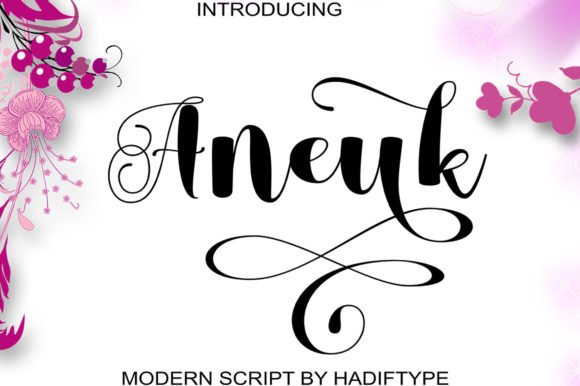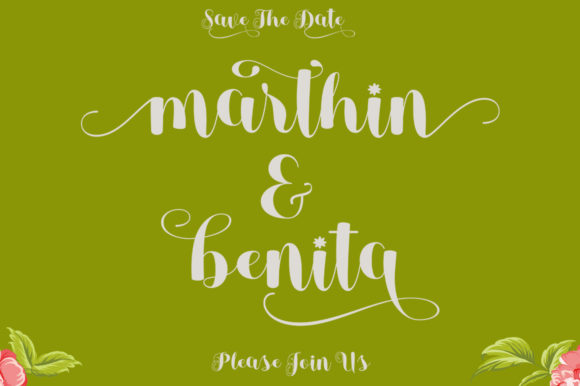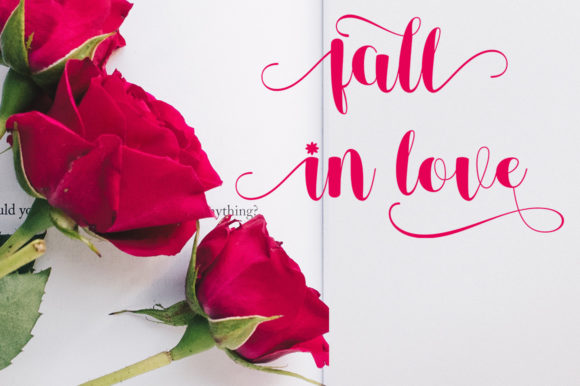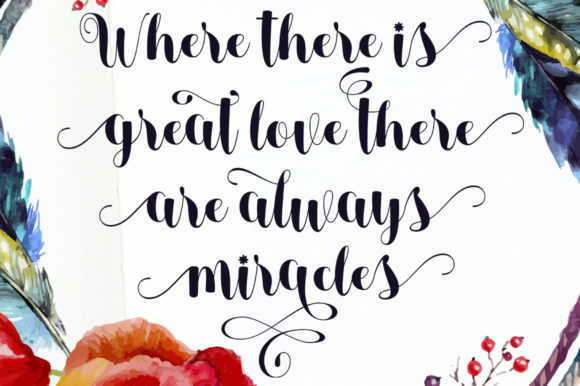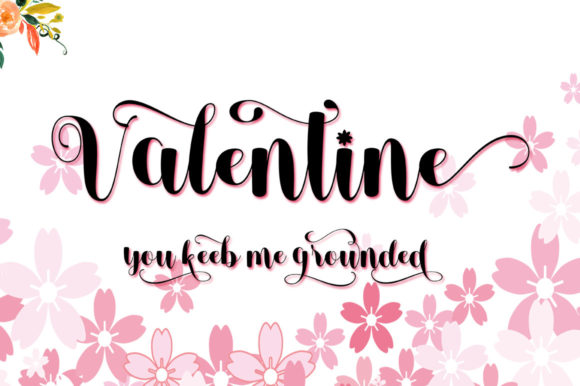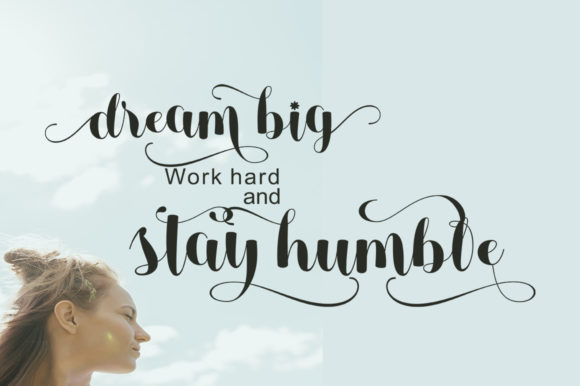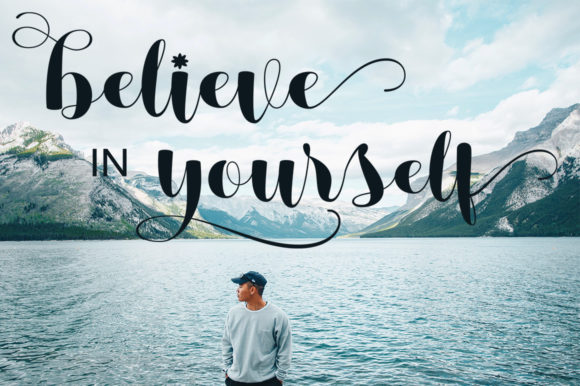
The Elegance of Aneuk Font: Elevating Your Designs
As a designer, there’s no greater joy than seeing your creations come to life. And for many of us, it all starts with the perfect font. Remember that moment when you stumbled upon the perfect script to match your client’s wedding theme, or the elegant serif that perfectly captured the essence of their brand? For me, it was the discovery of the Aneuk Font.
This stunning calligraphy font is a game-changer for any designer looking to add a touch of sophistication to their projects. With its smooth lines, gorgeous glyphs, and stunning alternates, the Aneuk Font is perfect for wedding invitations, thank you cards, quotes, greeting cards, logos, and business cards. And with PUA encoding, accessing all of the glyphs and swashes is a breeze.
Whether you’re a seasoned pro or just starting out, the Aneuk Font is an invaluable addition to your design toolkit. Its versatility and beauty make it a must-have for any project that requires a touch of elegance and refinement.
Aneuk Font Key Features
- Unique Characteristics: Aneuk Font features a unique blend of traditional and modern elements, with intricate details and subtle textures that give it a distinctive and eye-catching appearance.
- Character Set: The font includes a comprehensive character set, covering Latin, Cyrillic, and Greek alphabets, as well as a range of punctuation and symbol characters.
Aneuk Font Review
Overall, I have mixed feelings about Aneuk Font. On one hand, it has some great features, and I’ll highlight those below. On the other hand, it has some limitations that might make it less appealing to some users.
- Aneuk Font has a unique and modern design that sets it apart from other fonts.
- The font is highly customizable, allowing you to adjust its weight, width, and slant to suit your needs.
- It’s also very legible, making it suitable for body text and other long-form content.
- The font may not be suitable for headings or titles due to its relatively low x-height.
- The font’s weight and width customization options can be overwhelming, especially for beginners.
- The font is not as versatile as some other fonts, and may not be suitable for all types of projects.
Aneuk Font is a solid choice for designers who want a modern, customizable font for their projects. However, it may not be the best option for everyone, particularly those who need a font with a high x-height or a wide range of versatility. With some experimentation and patience, Aneuk Font can be a valuable addition to your design toolkit.
Aneuk Font is ideal for:
1. Asian-inspired designs and graphics.
2. Cultural and heritage-related projects.
3. Personalized and creative typography projects.
4. Adding a unique touch to your branding and marketing materials.